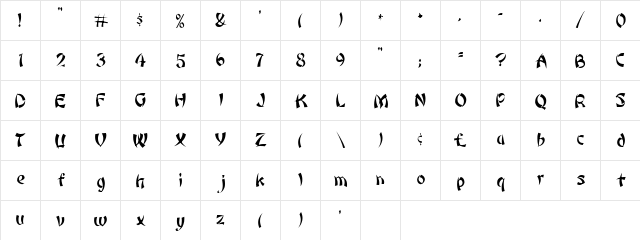
Bonzai Regular
Design Context for Bonzai Typeface
Bonzai is a composed and adaptable typeface that performs quietly and consistently across a wide range of design contexts.